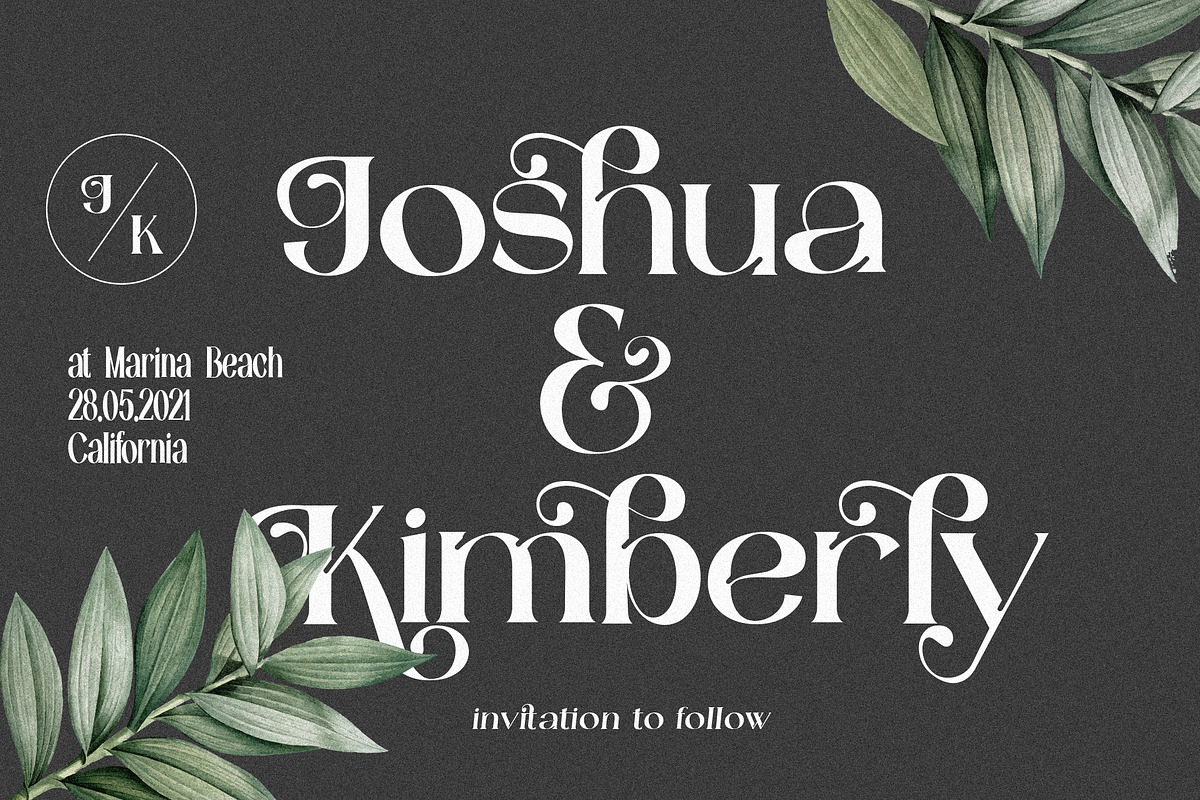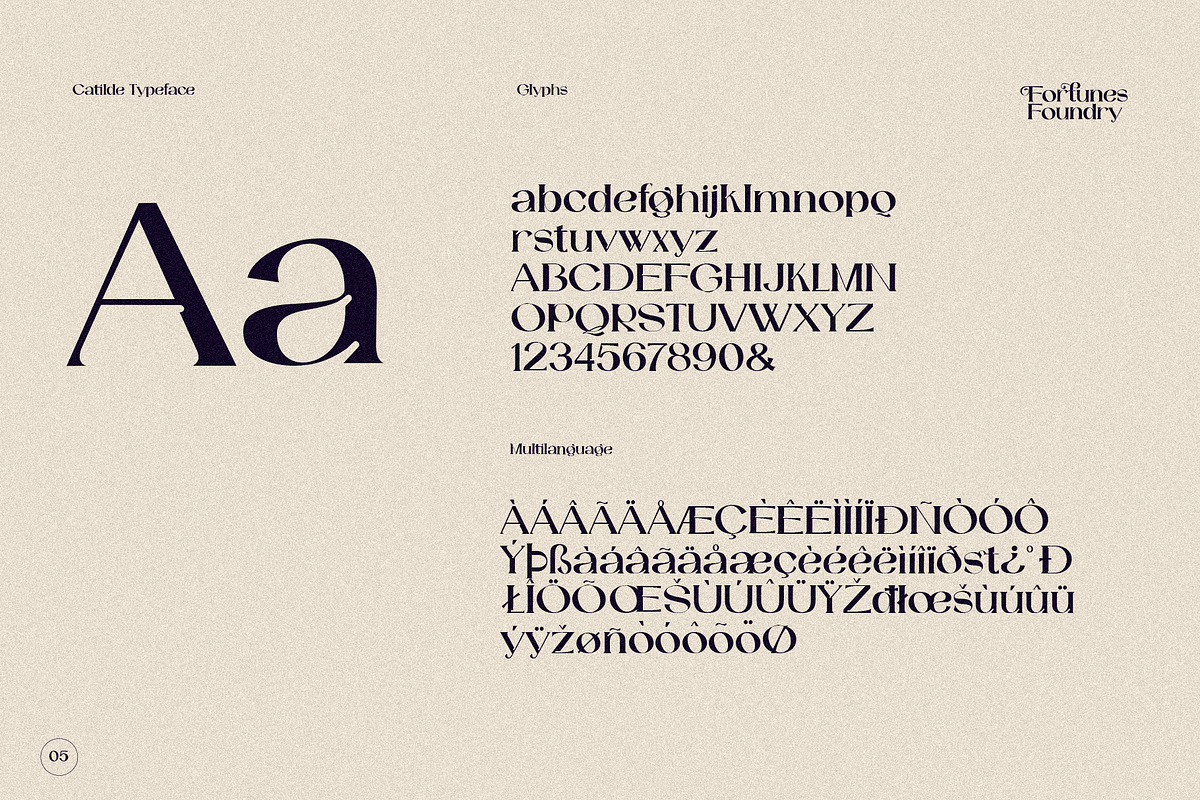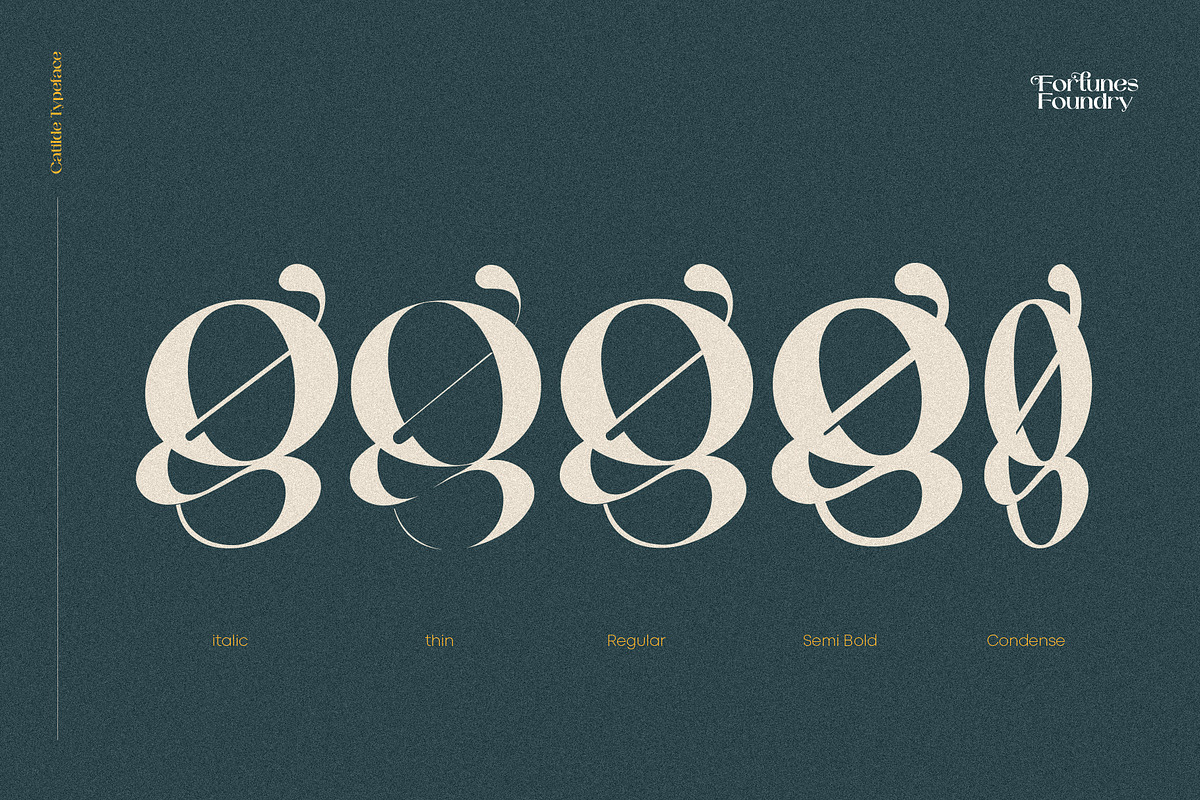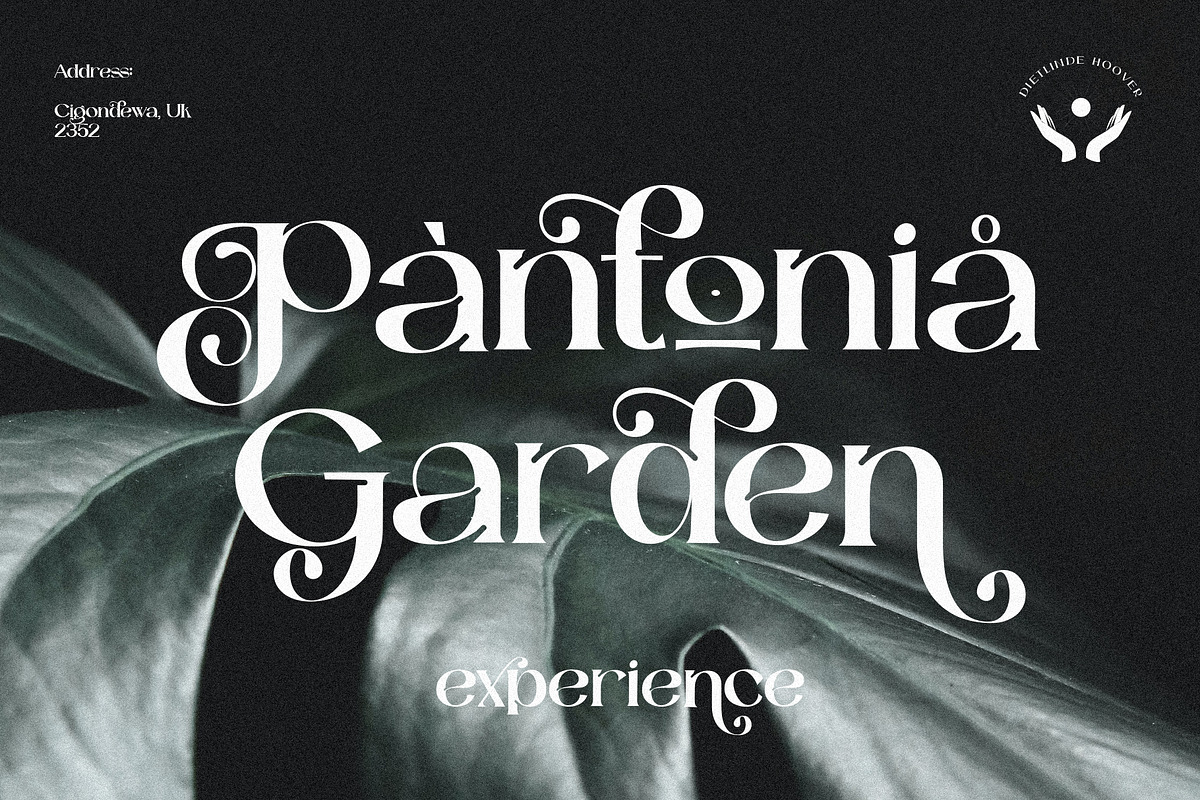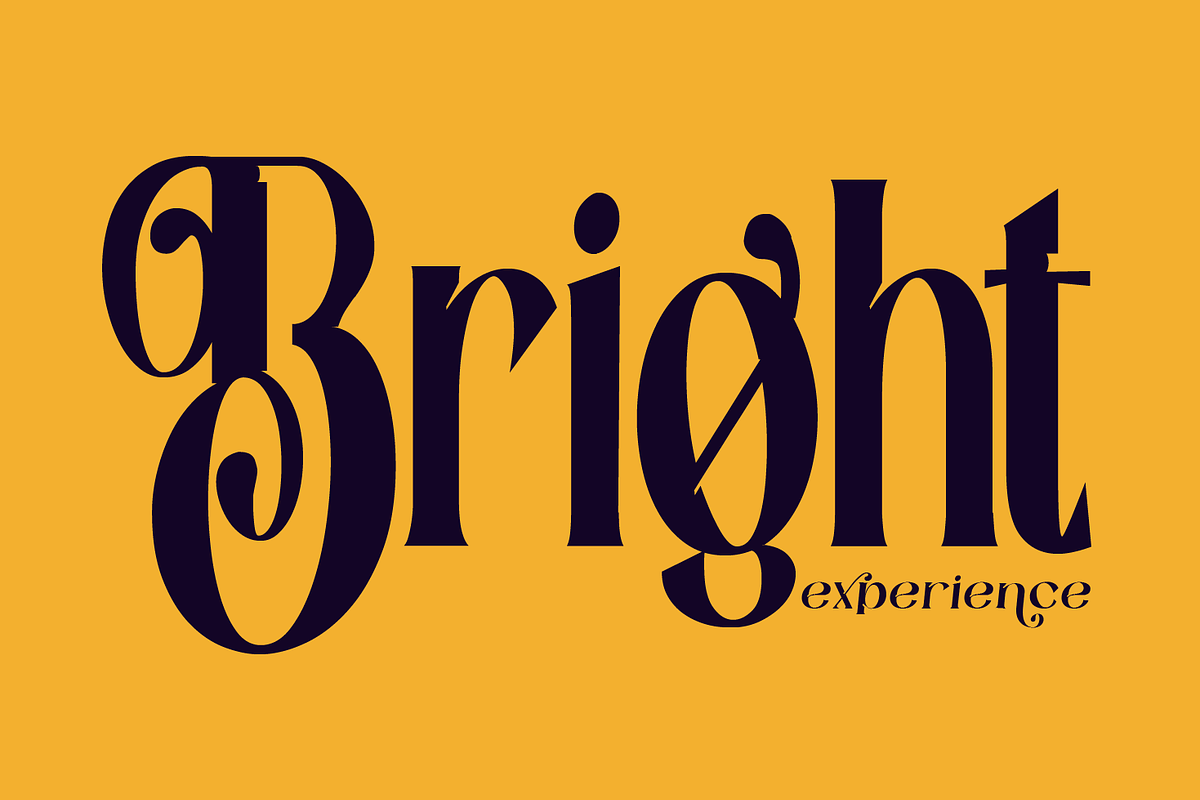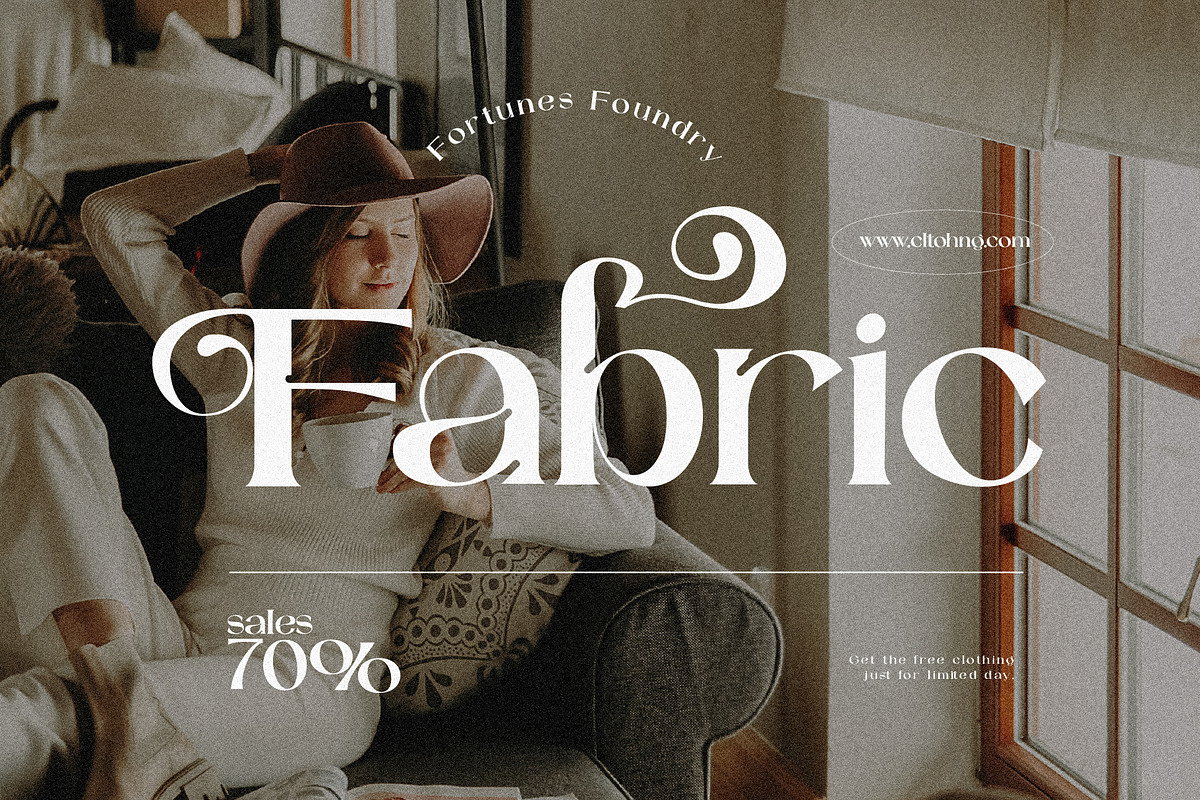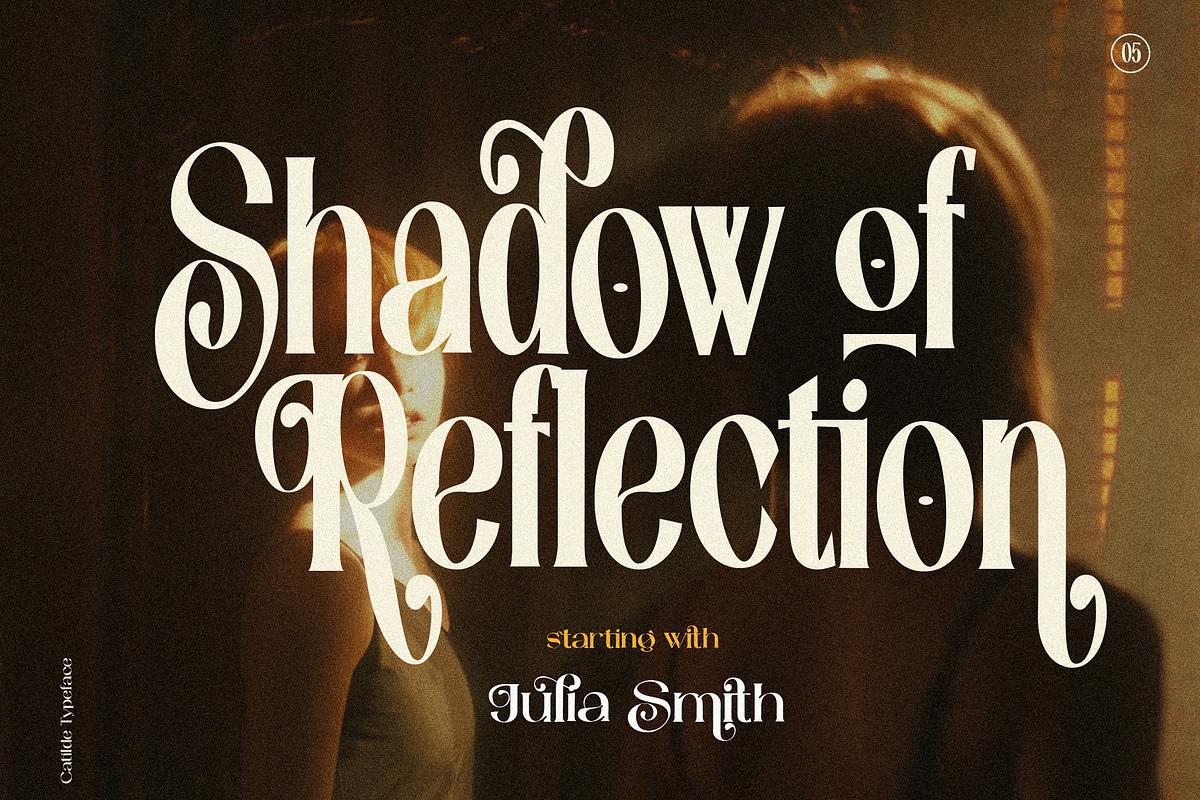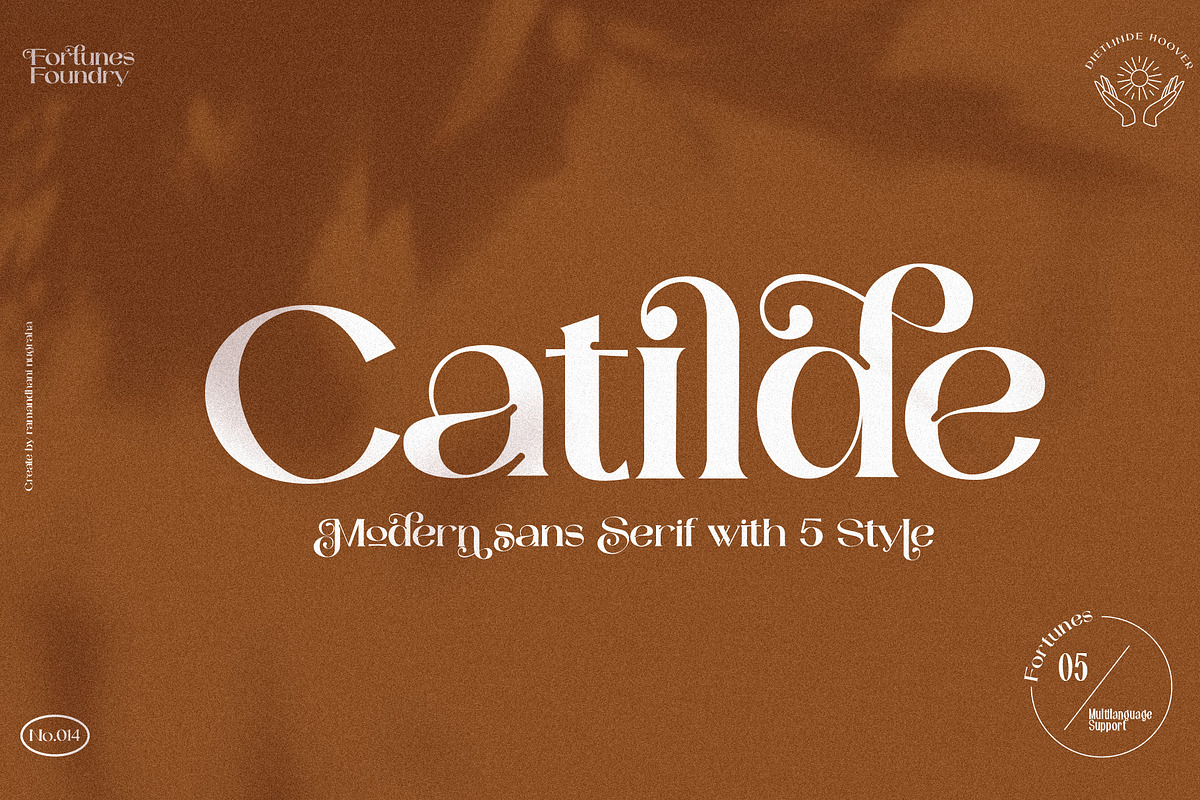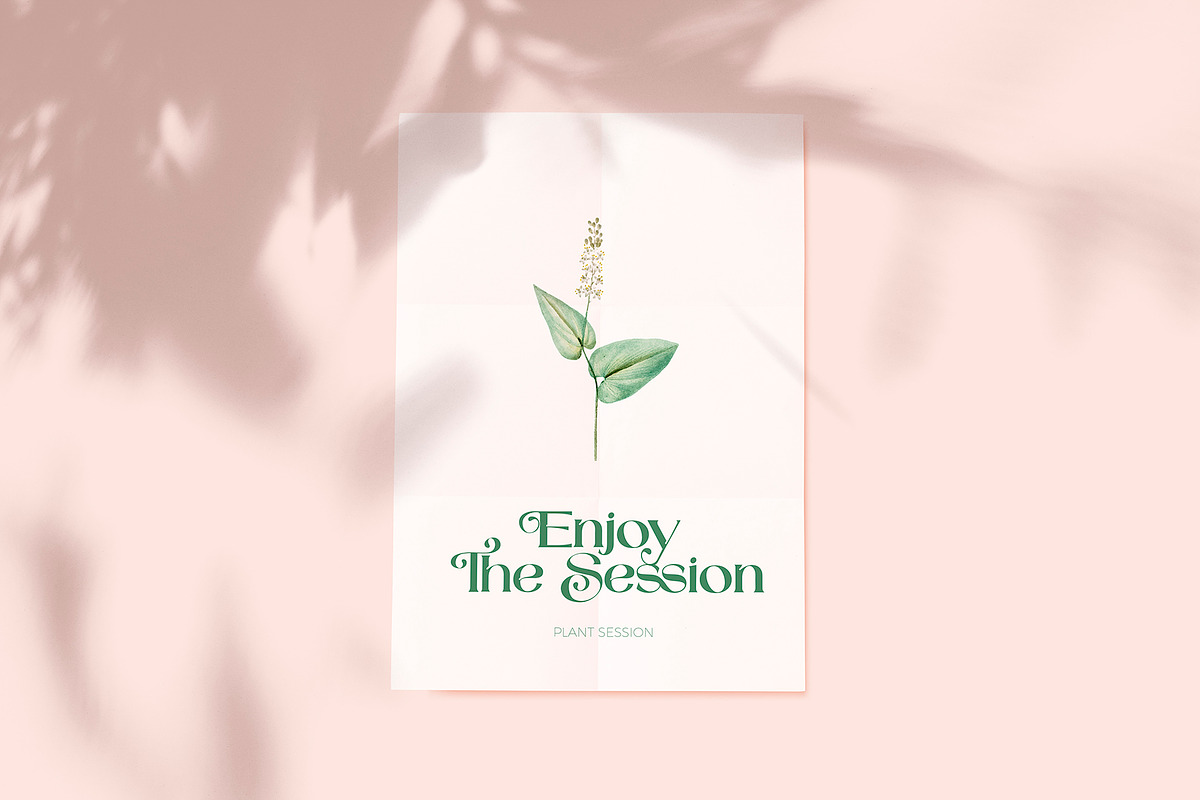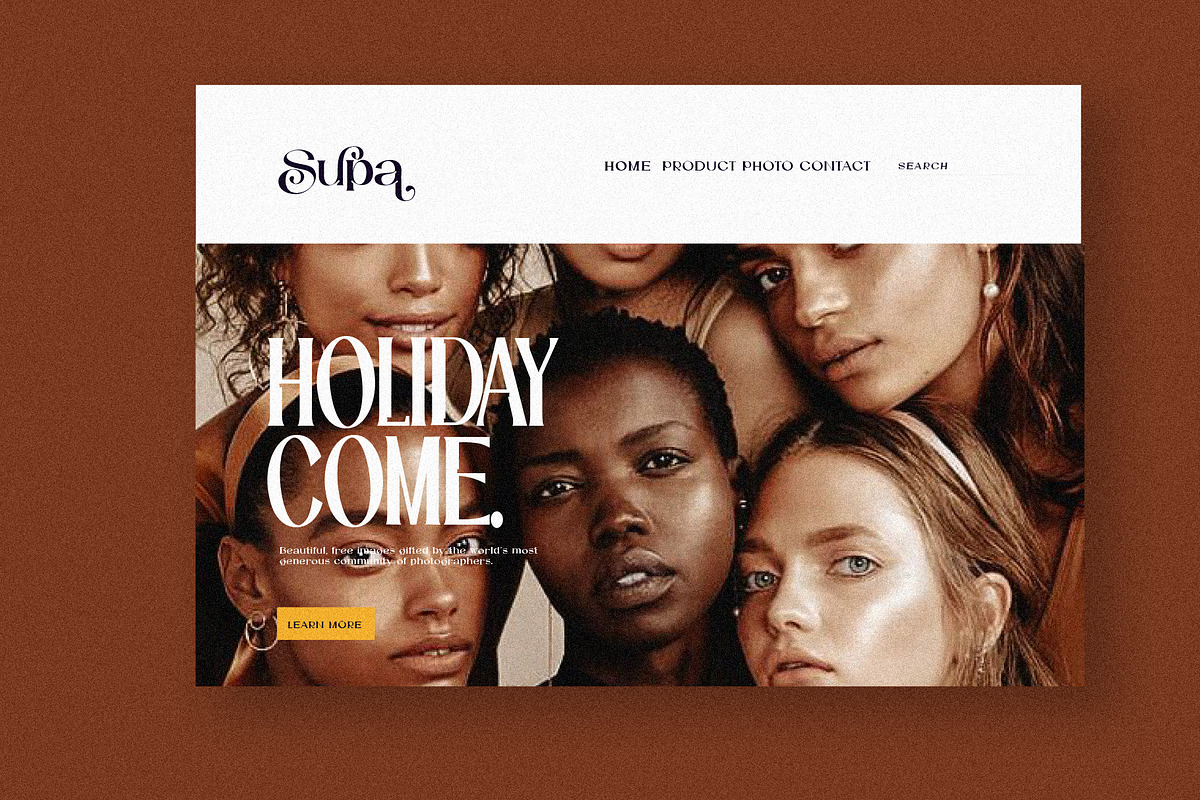
Catilde Modern Sans Serif
Introduce Catilde Modern Elegant come with 5 differents style Variation this is perfect for branding, magazine, logos, invitation, Title, promotion and more.
- Regular, light, semibold, italic, condense